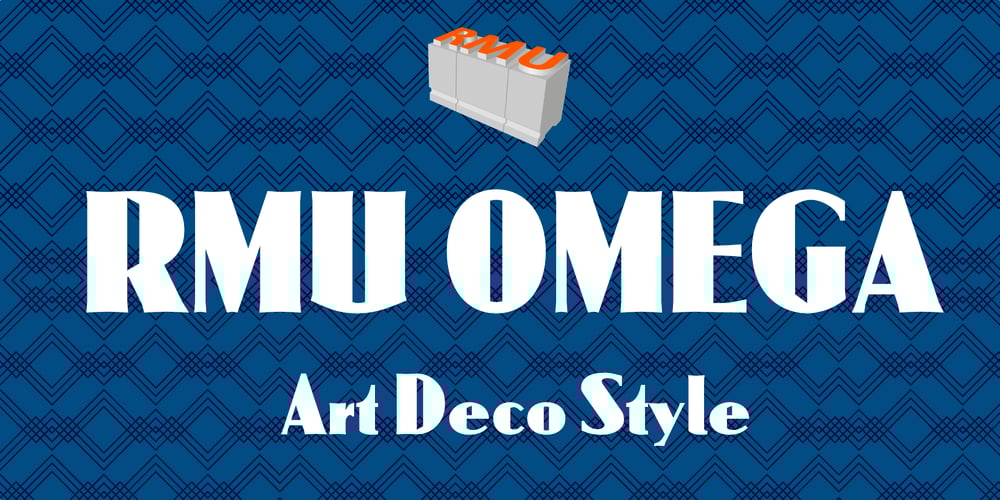
RMU Omega Font Family was designed by Ralph M. Unger and published by RMU. RMU Omega contains 1 styles and family package options. Friedrich Kleukens font design, influenced by the then prevailing Art Deco style, and released by Stempel in 1926, has been revived for modern use.To get access to all ligatures, it is recommended to activate both OT features standard and discretionary ligatures.